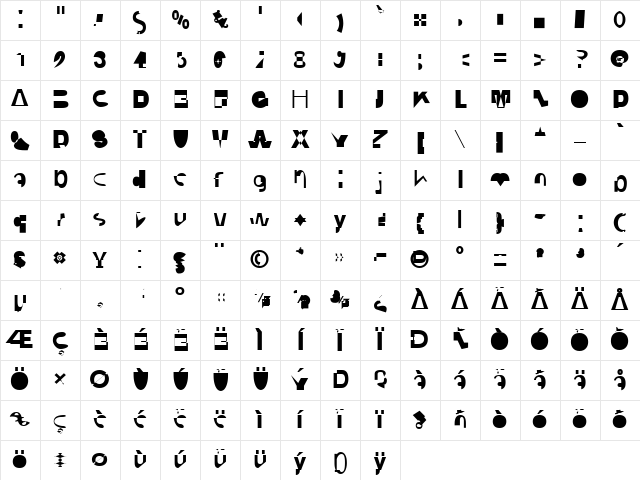
CodeBold Bold
Design Context for CodeBold
CodeBold uses fixed-width spacing throughout, giving it the structured, systematic character associated with coding environments and technical documentation. Its bold stroke weight gives it real presence on the page.
Pro Tip: Use CodeBold with slightly increased line-height for extended reading - fixed-width spacing can feel dense in longer passages without extra breathing room.